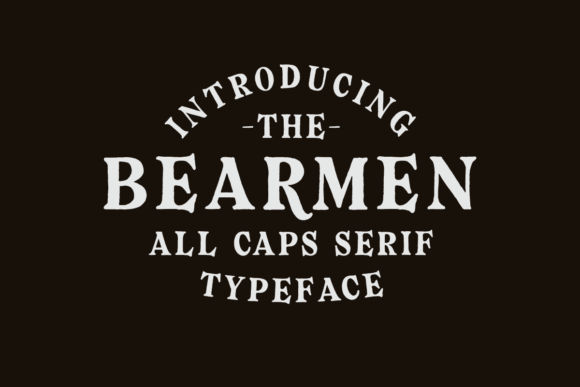
Prepare yourself for a transformative typographic journey with Bearmen Font, an exquisite serif font family crafted by the visionary minds at Martype.Co. Bearmen is a masterful symphony of vintage charm and contemporary sophistication, carrying you back to an era of elegance and timeless aesthetics.
Embrace the playful nostalgia that Bearmen exudes, where each letter dances with a spirit of whimsy and delight. Dive into the captivating world of retro design, where Bearmen serves as your faithful guide, leading you through a kaleidoscope of creative possibilities. Unleash your imagination and let Bearmen ignite your passion for typography.
With its alluring curves and delicate serifs, Bearmen effortlessly captures the essence of yesteryear. It's a font that speaks of bygone eras, evoking a sense of longing and nostalgia. Yet, within its vintage charm lies an undeniable modernity, a timeless quality that ensures Bearmen remains relevant and captivating in the digital age.
Transport yourself to a world of vintage elegance, where Bearmen Font reigns supreme. Let your designs exude an aura of sophistication and timeless beauty. Whether you're crafting logos, branding materials, or eye-catching social media graphics, Bearmen is your perfect companion. Its versatility knows no bounds, effortlessly adapting to a myriad of design styles and projects.
Dare to be different, to embrace the extraordinary. With Bearmen Font, you hold the key to unlocking a world of creative possibilities. Step into a realm where vintage charm meets contemporary brilliance. Let Bearmen be your muse, inspiring you to create designs that transcend time and leave a lasting impression.